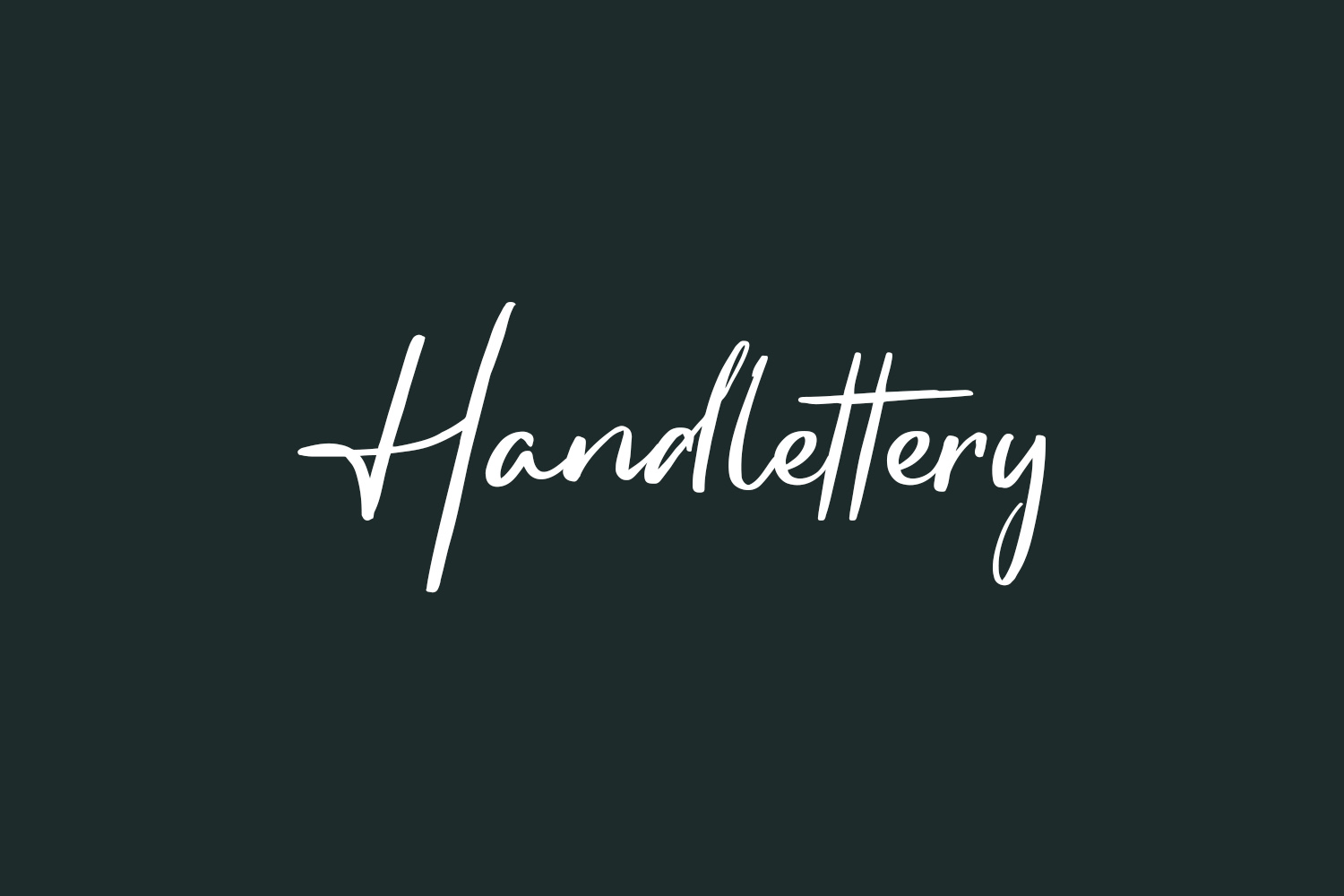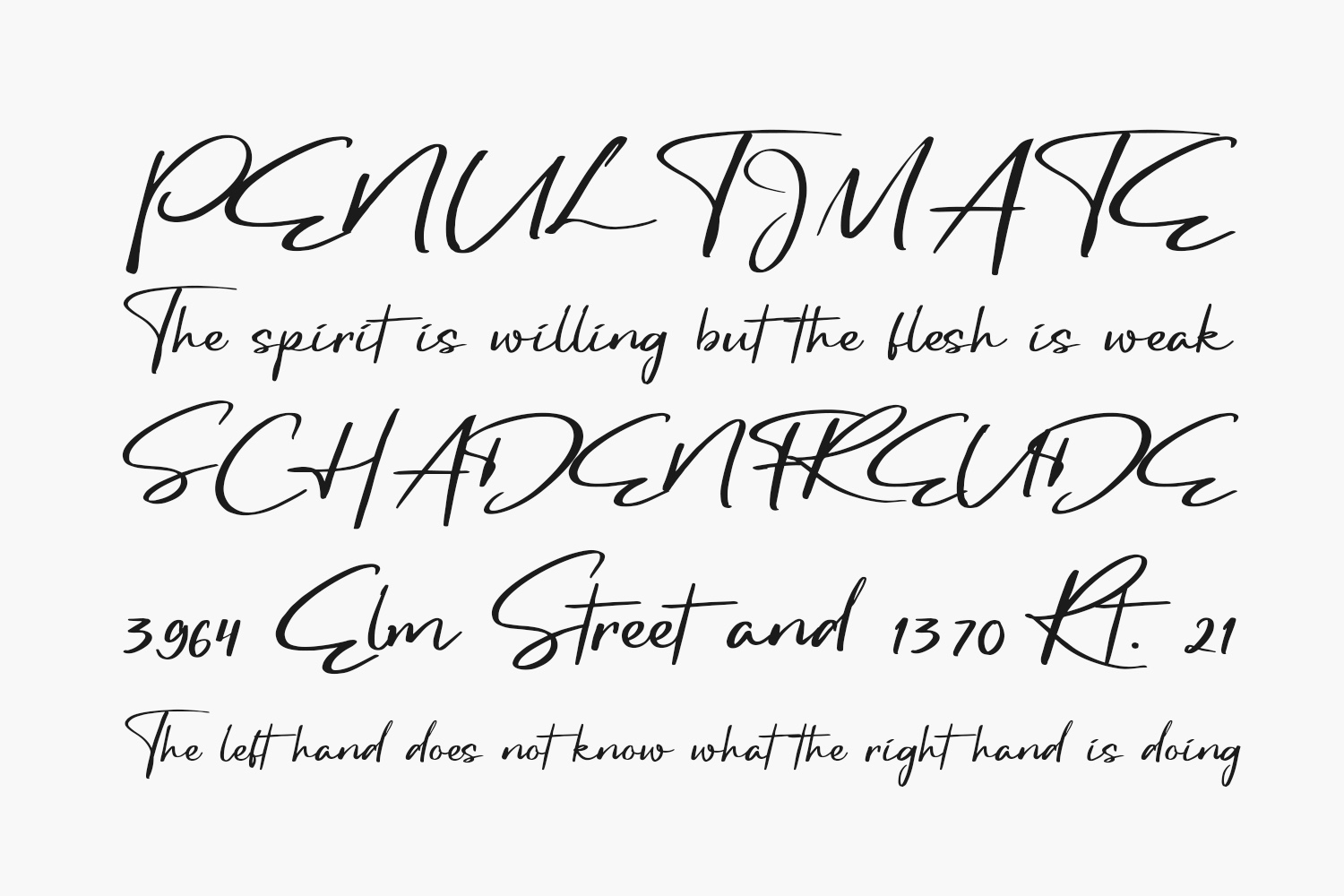
Handlettery Free Font is an elegant and dainty handwritten font that features sweet and delicate swashes. This original look will appeal to a wide range of crafty ideas, from letterheads and titles, to stationery. Handlettery Free Font was designed by Scratch Design and is free for personal use only. Please purchase the full version for commercial use.